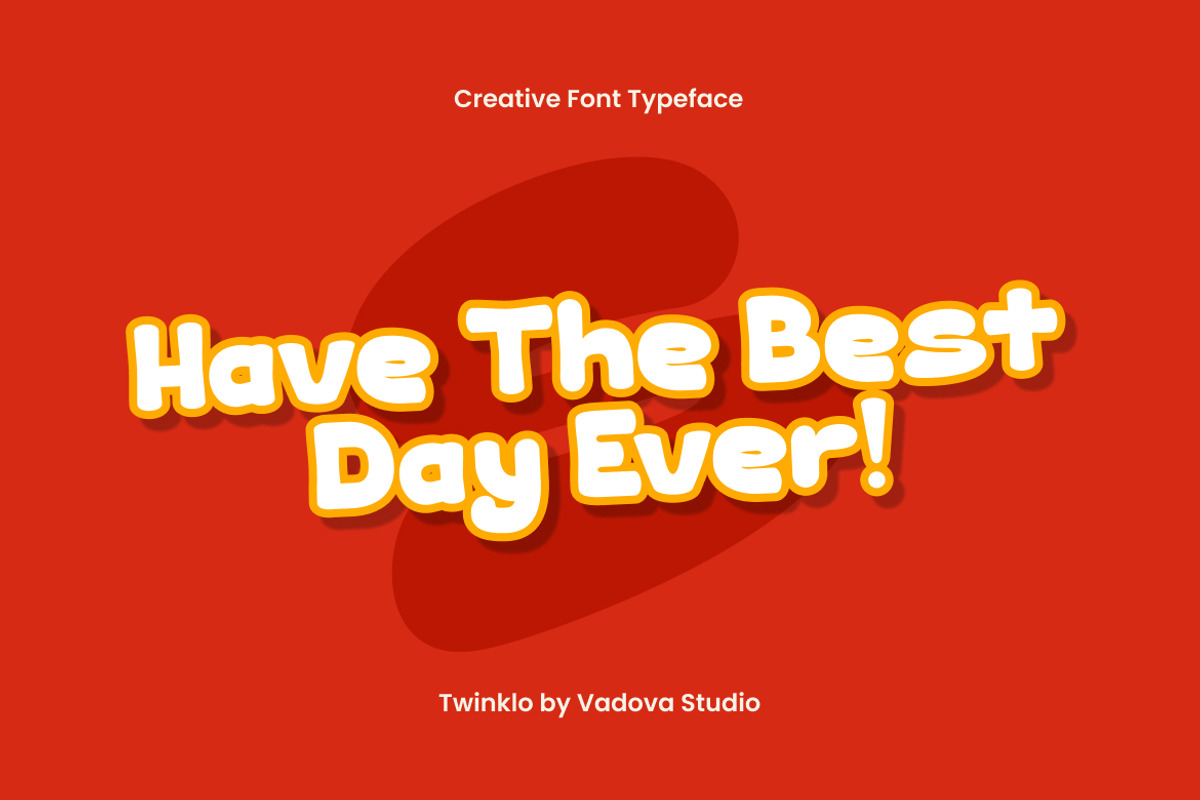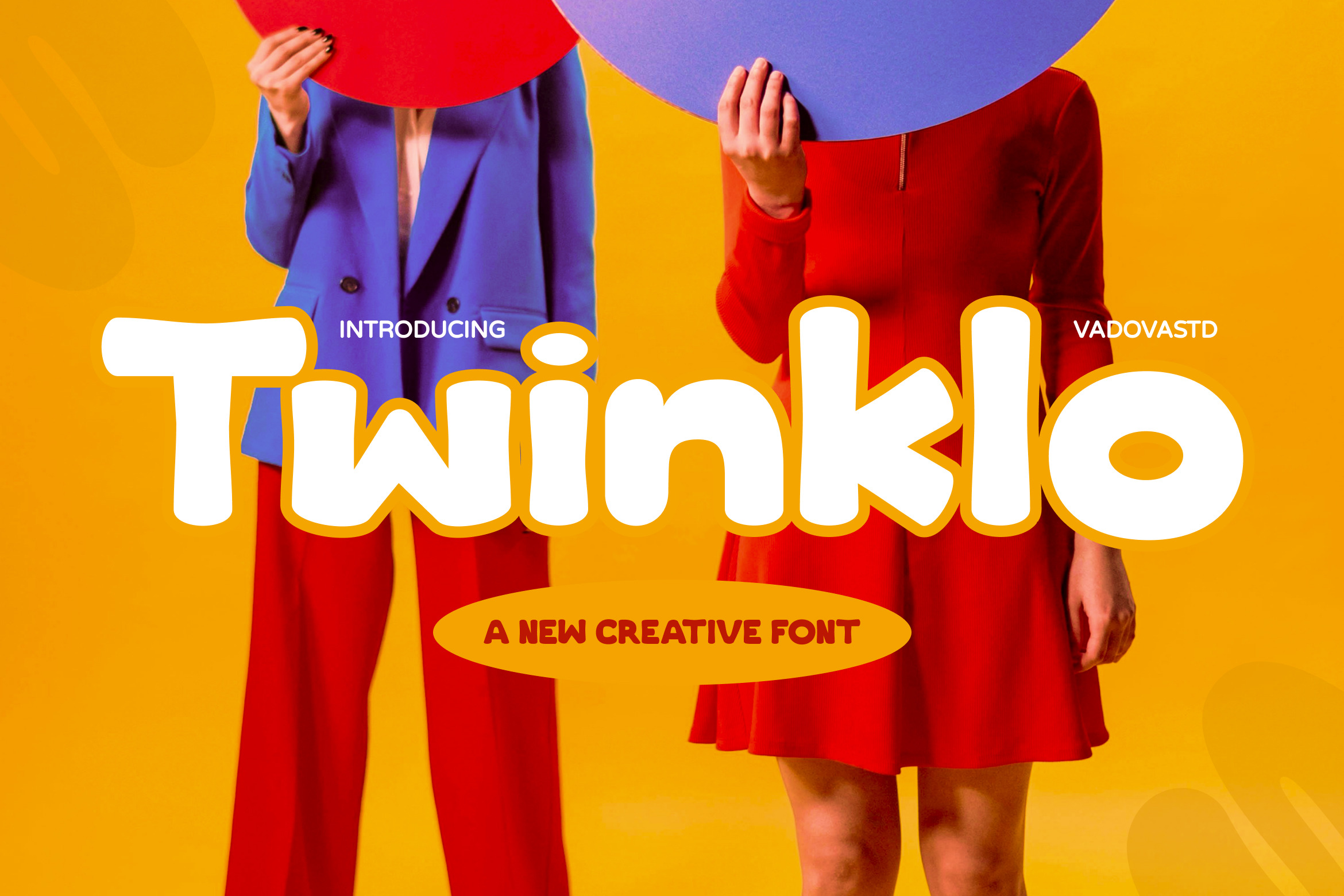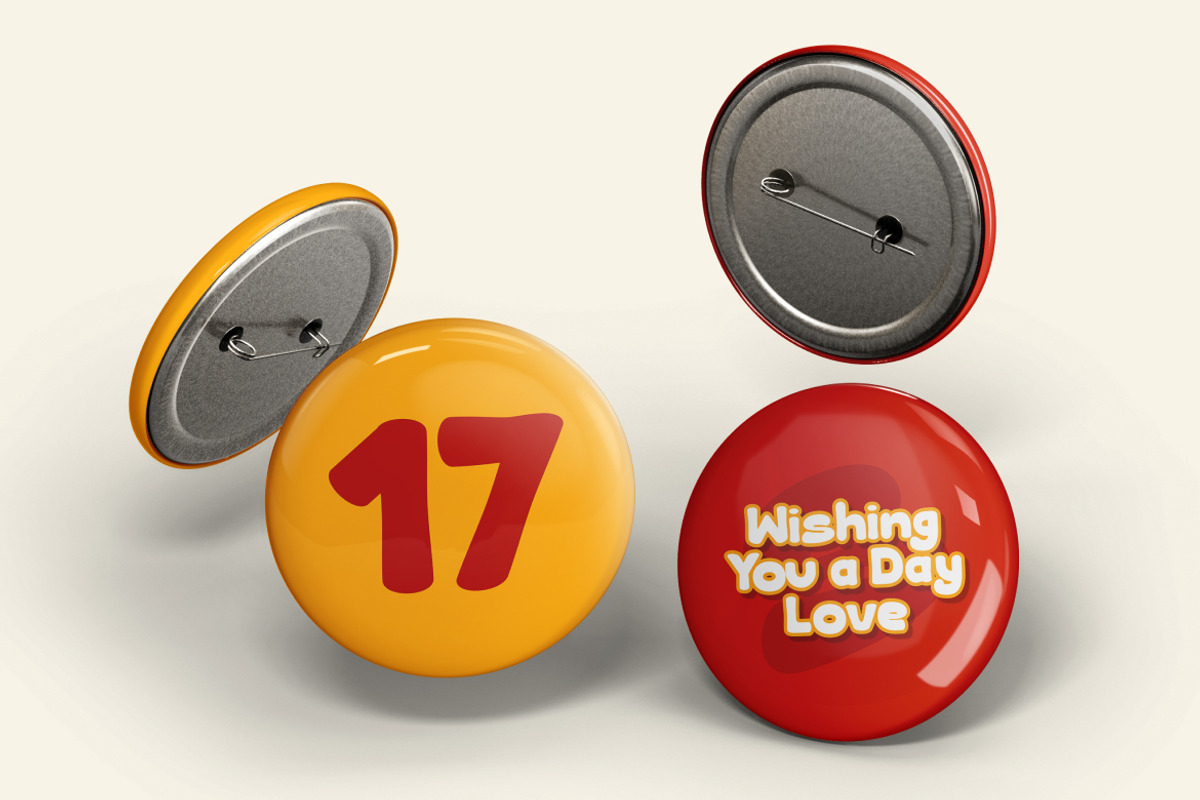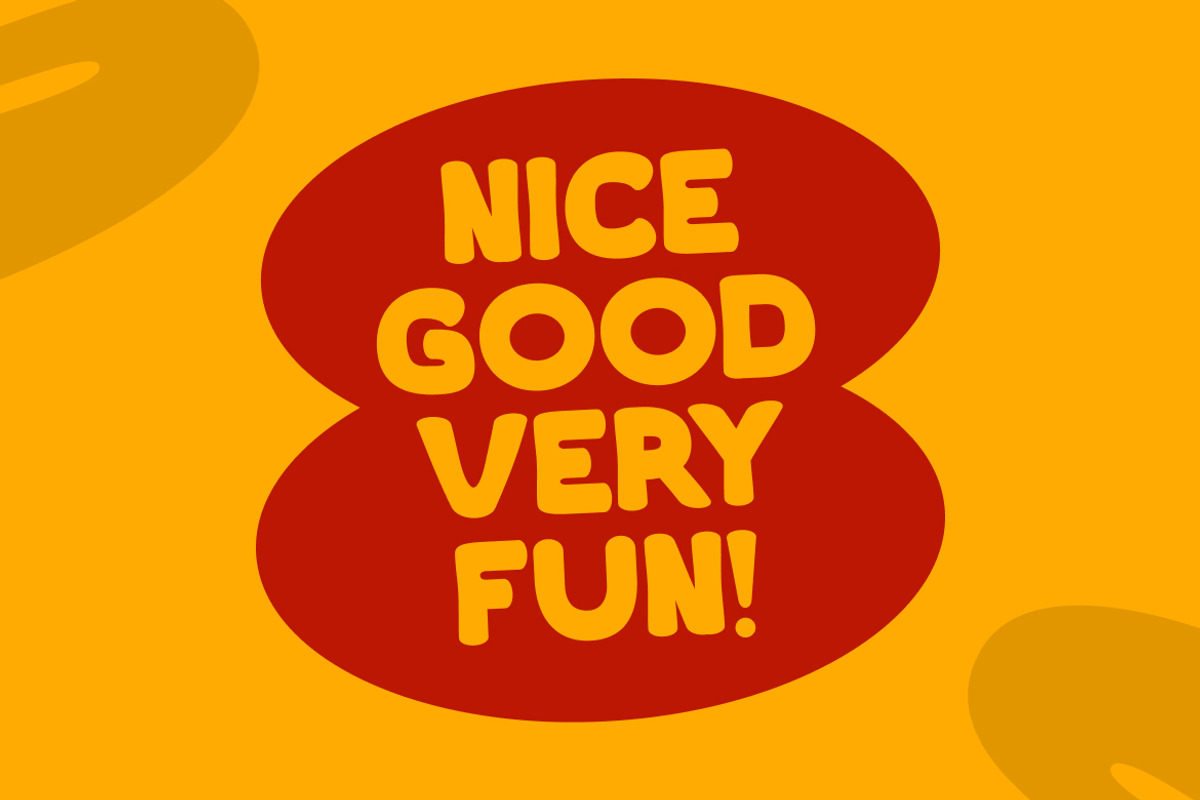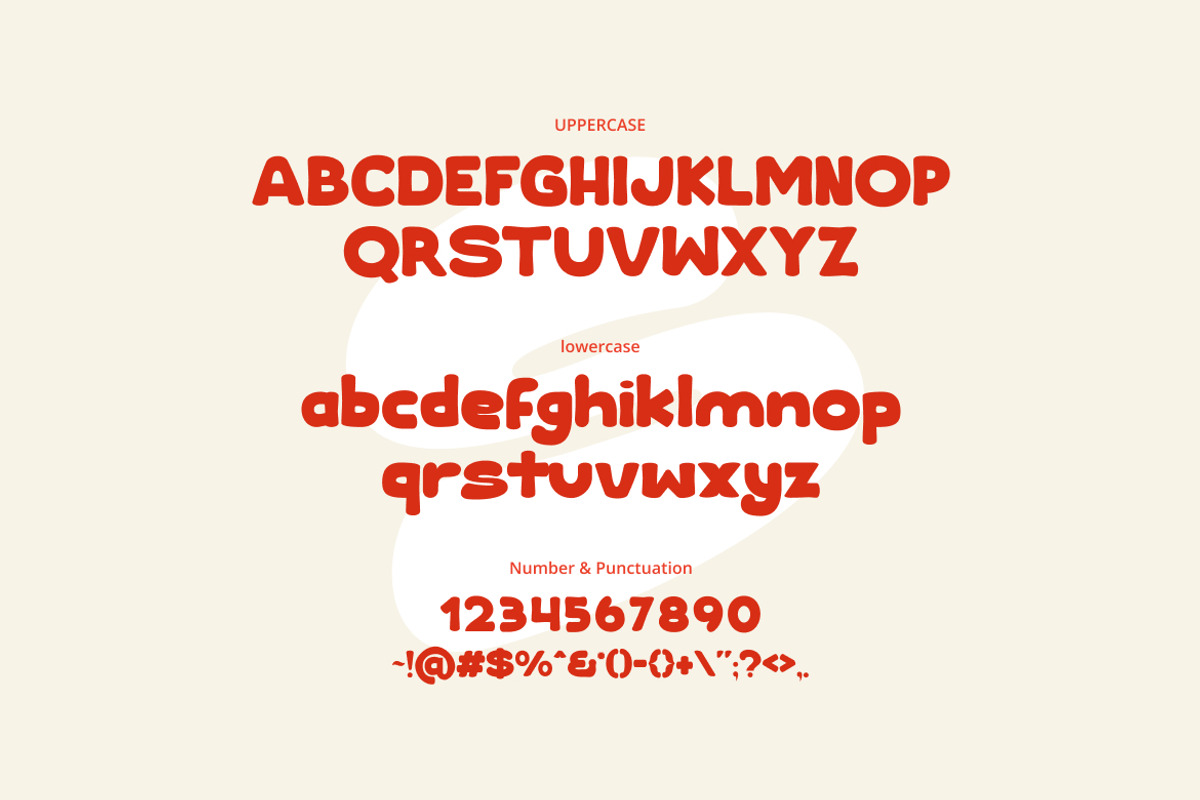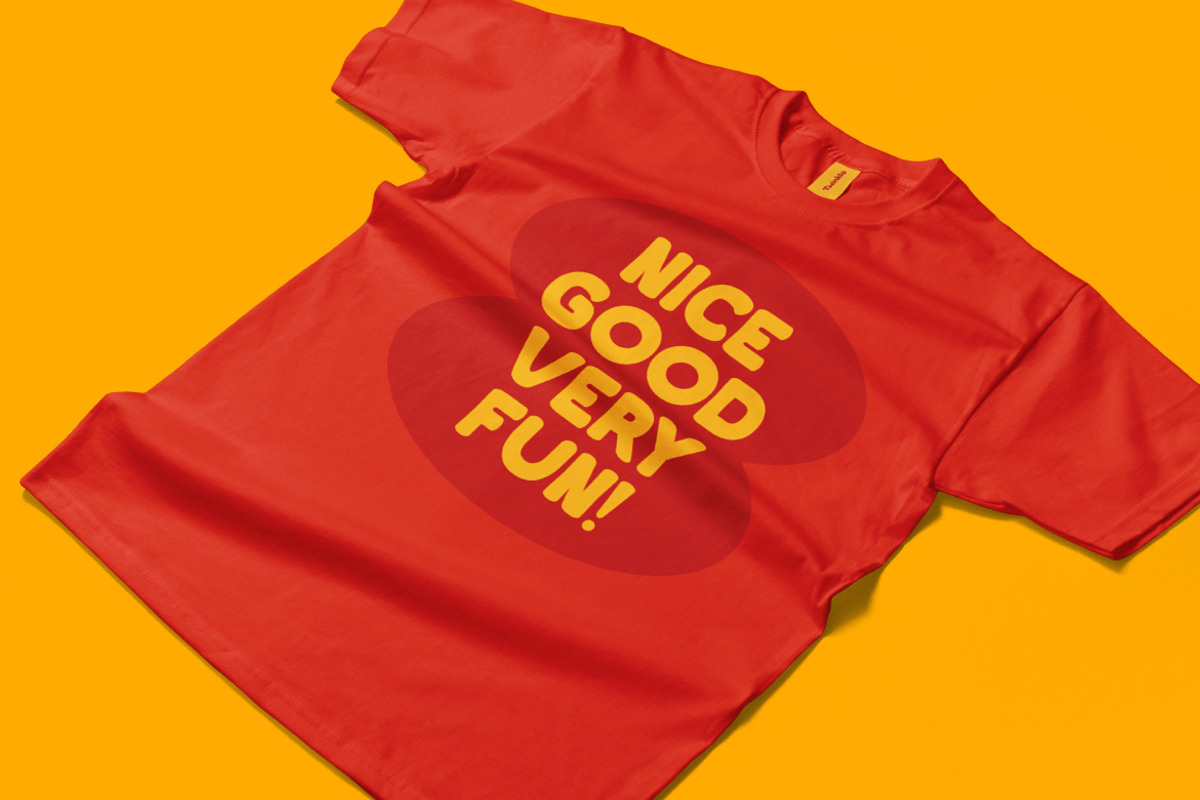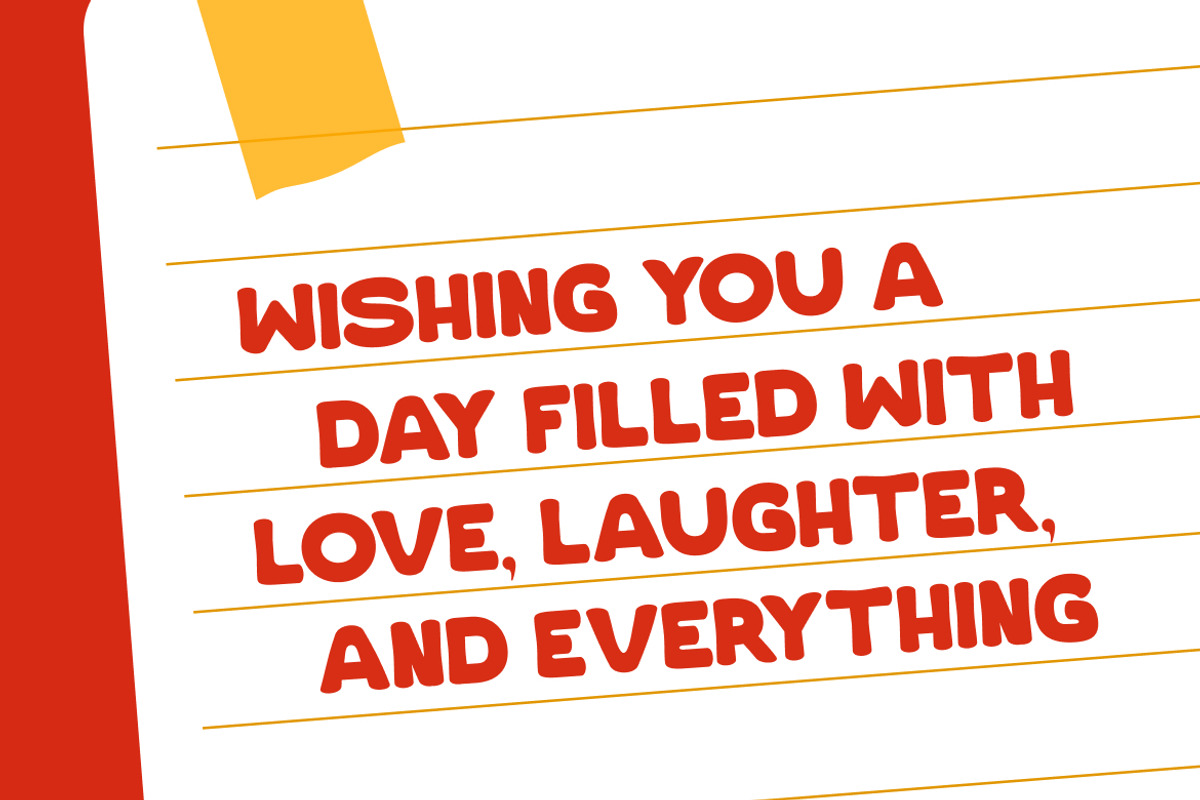
Twinklo – Rounded Display Font
Twinklo is a cheerful rounded display font that blends modern fun with friendly personality. Each letter is crafted with smooth curves and bold shapes, giving it a soft yet confident look. Its clean edges and lively rhythm make it ideal for brands that want to project positivity, energy, and warmth.
Designed with a sense of playfulness, Twinklo works perfectly in children’s projects, modern ads, product packaging, and lifestyle branding. It’s a font that lights up any design with a bright and approachable charm.
Font Highlights
Uppercase & lowercase characters
Numerals and punctuation
Rounded display form with bold, balanced spacing
Modern and playful aesthetic for creative visuals
Why Designers Love Twinklo
Friendly Personality – Rounded corners and smooth weight evoke approachability.
Bold Yet Soft – Strong enough for display use but keeps a fun, inviting tone.
Versatile Aesthetic – Ideal for modern lifestyle, social, and product design.
Youthful & Clean – A minimal but lively font for creative expression.
Best Applications
Branding and logo design
Product packaging and label design
Kids-related projects and playful themes
Social media graphics and lifestyle ads
Greeting cards, posters, and merchandise
Minimalist editorial titles and typography
Let your words shine with Twinklo — a soft, bold font that radiates joy, confidence, and creativity.